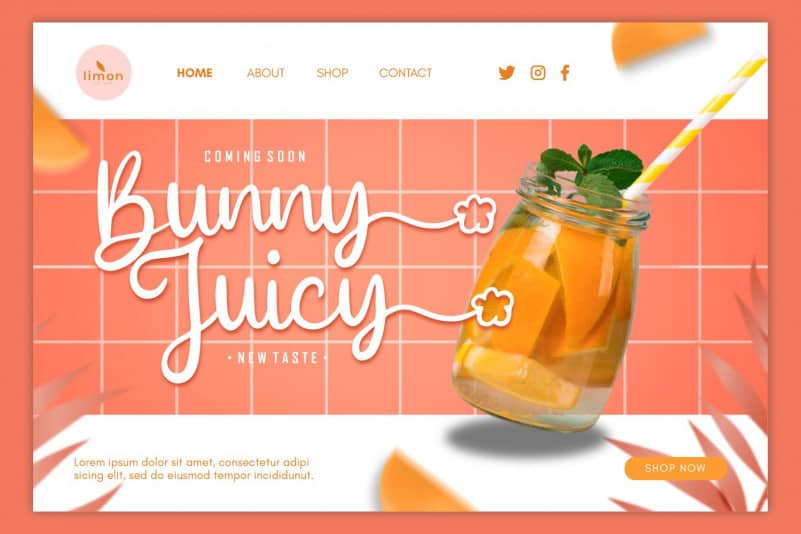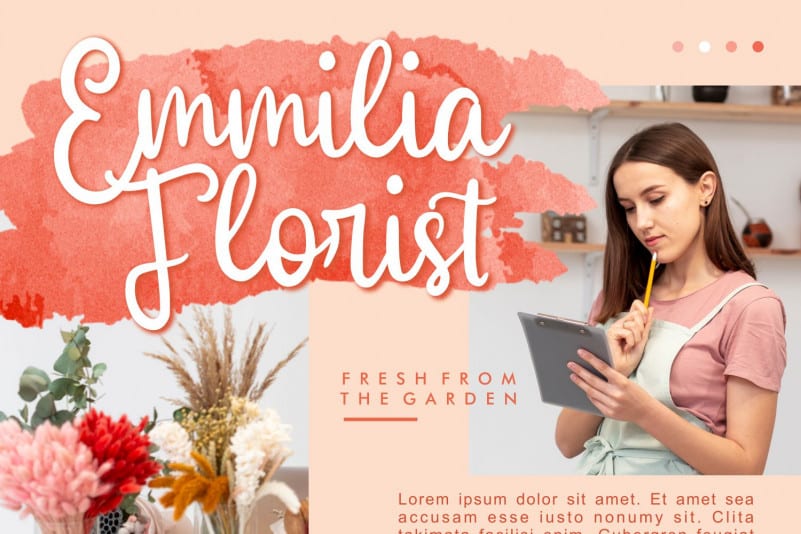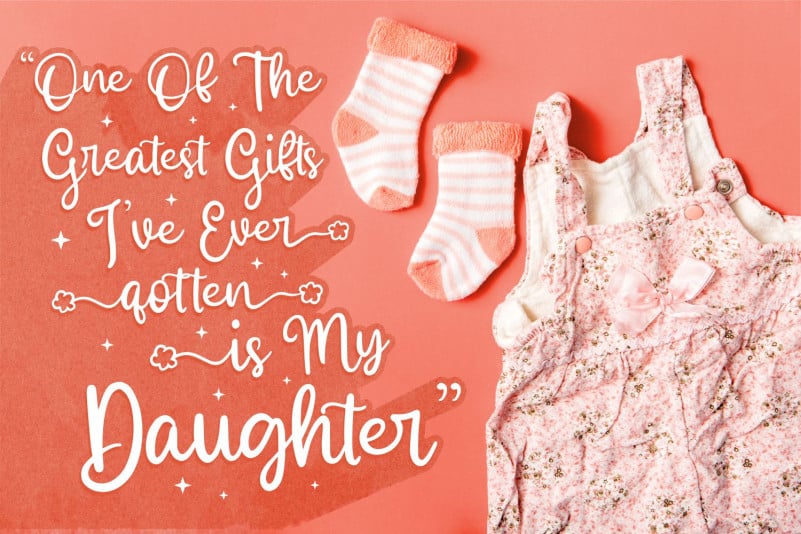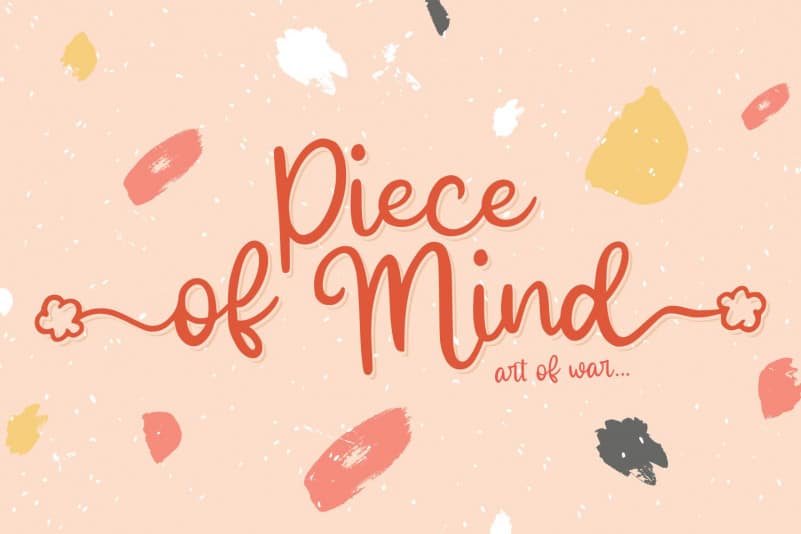
Melly Honney Calligraphy Font
Melly Honney Calligraphy Font is an elegant and dainty handwritten font that features sweet and delicate swashes. This original look will appeal to a wide range of crafty ideas, from letterheads and titles, to stationery.
Allouse.Studio